47 Best Typewriter Fonts in 2026 for Vintage and Retro Design
Typewriter Fonts have experienced a resurgence in modern design, offering a timeless and authentic feel to various creative projects. In 2026, discovering the right Typewriter Fonts can elevate your website, branding, or artistic work with a nostalgic charm that resonates with audiences. Whether you’re aiming for a vintage vibe or a raw, retro look, these fonts provide the perfect balance of style and readability.
1. Standard Typewriter Font
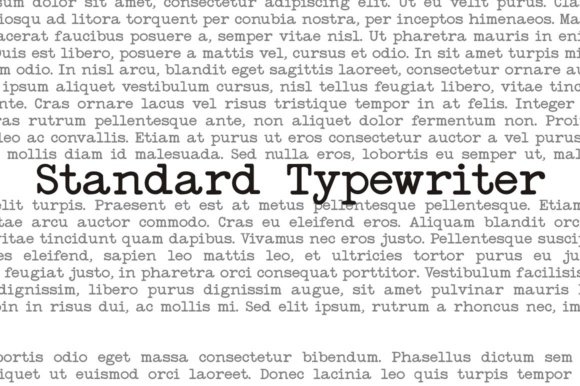
The Standard Typewriter Font embodies the classic, straightforward aesthetic of traditional typewriter text. Its clean, unembellished serif structure makes it an ideal choice for creating authentic vintage impressions that evoke the era of mechanical typing machines. Designed with simplicity in mind, this font is perfect for projects aiming to replicate the nostalgic charm of old documents, typewritten scripts, or archival materials. Its neutral appearance provides excellent readability, which makes it suitable for use in both digital and print contexts where a vintage, yet uncluttered, look is desired.
Beyond its visual appeal, the Standard Typewriter font serves as a versatile tool in design applications such as branding for vintage-inspired products, editorial layouts, or personal projects that seek a subtle, timeless typewriter effect. When used in creative storytelling, it can enhance the authenticity of a narrative or historical context. This font performs particularly well in situations where minimalistic typewriter aesthetics are needed to convey professionalism or a sense of nostalgia without overwhelming the content. Its straightforward design ensures it complements other design elements effortlessly, making it a staple in the realm of typewriter fonts.
2. Shine Typewriter Font
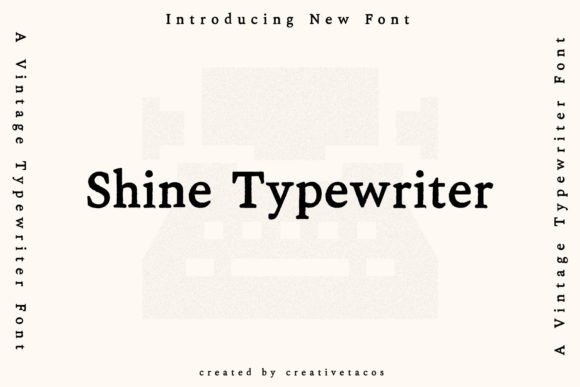
The Shine Typewriter Font stands out as a lively, eclectic take on traditional typewriter fonts, infused with a creative and handmade flair. Its quirky lettering style brings a retro or forensic vibe that can perfectly evoke a sense of character, edginess, or personalized authenticity. This font is especially effective when incorporated into designs that aim to evoke nostalgia, vintage detective stories, or old-school laboratory themes. Its distinctive, slightly imperfect strokes lend a tactile, handmade quality that adds depth and personality to any typographic landscape.
Ideal for diverse creative projects such as posters, album covers, or branding that needs a playful yet vintage touch, Shine Typewriter can dramatically elevate visual storytelling. It works well in contexts where a handcrafted, thematic font is critical—think zines, indie branding, or thematic websites that seek to captivate audiences with an artisanal feel. Due to its unique character, this font is also excellent for headlines or titles that require a bit of punch and personality, setting a memorable tone. Its bold, retro aesthetic allows it to stand out in a crowded design space while paying homage to the tactile charm of old typewriters.
3. Unexpected Typewriter Font
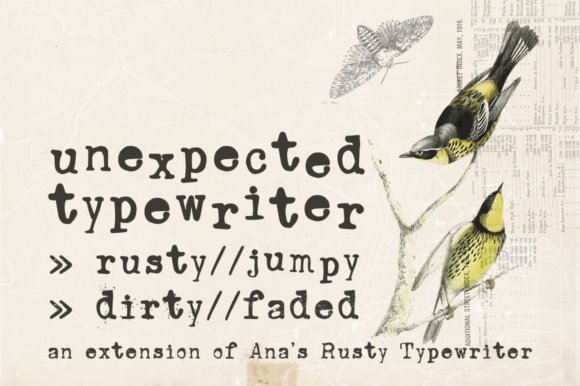
Unexpected Typewriter Font offers a distinctive twist on vintage typewriter styles, combining hand-drawn elements with the classic serif structure to create an imperfect, grungy aesthetic. Inspired by the authentic feel of old Underwood models, this font family includes multiple variations—such as Jumpy, Dirty, and Faded—that enable designers to craft layered, vintage-inspired compositions with a raw, distressed look. The inclusion of contextual alternates in the Jumpy version allows for natural variation within the text, making each usage feel more organic and less mechanical, enhancing its suitability for projects that celebrate imperfection and nostalgia.
This font is especially well-suited for creative projects where a touch of rugged authenticity is required. Use it in album artwork, gritty posters, or personal art projects that aim to portray a sense of historical authenticity or vintage rebellion. Its textured, distressed appearance can add depth to branding for vintage shops, retro-themed packaging, or editorial layouts where a worn, tactile typographic feel elevates the overall aesthetic. When used thoughtfully, Unexpected Typewriter can evoke stories of the past with an artistic twist, perfect for designers seeking to meld history with handcrafted charm in their typography.
4. Remington Weather Display Font
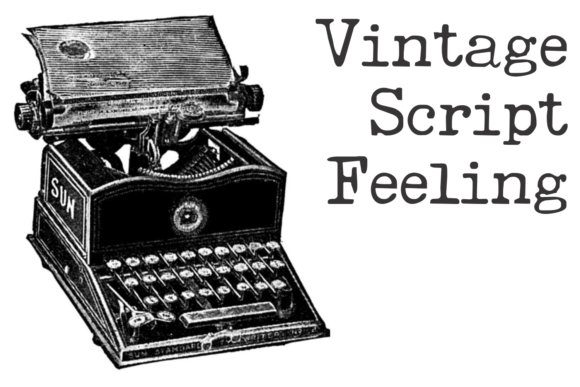
Remington Weather is a distinctive distressed typewriter font designed to emulate the imperfections found in vintage typewriting machines from bygone eras. Its intentionally worn and chaotic ink effects evoke a sense of history and raw authenticity, making it particularly suitable for projects seeking a rugged, nostalgic aesthetic. As a typewriter font, it captures the organic irregularities of old mechanical typing, including uneven ink trails and slanted letterforms, lending an edgy character that stands out in display settings.
This font is ideal for creating memorable titles, posters, and branding that call upon a vintage or industrial mood. Its gritty visual texture enhances designs demanding a sense of authenticity or handcrafted appeal—think vintage-themed advertisements, magazine headlines, or album covers. When aiming to evoke the tactile feel of aged typewritten documents, Remington Weather becomes a compelling choice, translating the historical charm of classic typewriter fonts into contemporary visual projects effectively.
5. Ab Typewriter Font
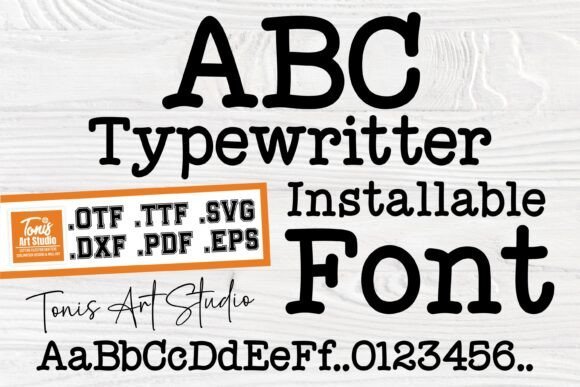
The Ab Typewriter font breathes new life into classic typewriter lettering, blending retro charm with modern versatility. This font set offers a comprehensive collection of SVG, DXF, TTF, and OTF formats, making it highly suitable for a range of digital and physical crafting projects—especially those involving Cricut, Silhouette, and other cutting machines. Its vintage aesthetic brings a touch of nostalgia to scrapbooking, card designs, and DIY crafts, transforming ordinary projects into personalized works that echo the era of typewritten manuscripts.
Beyond its aesthetic appeal, Ab Typewriter’s detailed files—vector images, high-resolution PNGs, and printable PDFs—make it easy to incorporate its timeless letterforms into diverse creative mediums. The font’s imperfect character, often featuring slight misalignments and varied ink densities, perfectly mimics the organic flaws of vintage typewriters. This authentic vintage look is perfect for craft enthusiasts, graphic designers, and branding professionals aiming to evoke the feel of a bygone era while adding a uniquely handcrafted touch to their projects.
6. Rattle Ink Serif Font
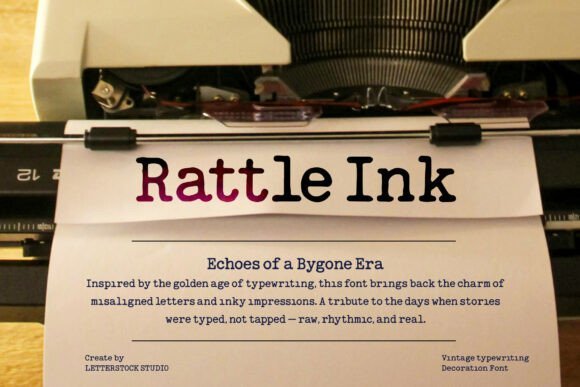
Rattle Ink is a beautifully imperfect serif font that draws inspiration from vintage typewriter fonts, capturing the essence of old-school printing through its organic, distressed appearance. Each letter is subtly marked with ink bleeds, misalignments, and slight irregularities, creating an authentic retro vibe that resonates with nostalgic design sensibilities. Its distressed yet legible form makes it an excellent choice for projects aimed at evoking vintage elegance, from book covers to branding logos, or retro-inspired posters.
As a typewriter font, Rattle Ink lends a nostalgic charm to editorial layouts, flyers, and social media graphics that seek to reflect an era when manual typesetting was the norm. Its imperfect details add warmth and personality to any design, making it especially powerful for branding that celebrates heritage, craftsmanship, or history. Whether used in editorial design or creative branding projects, Rattle Ink ensures your visuals communicate a timeless allure rooted in the rich tactile history of typewritten text.
7. Typewriter Font
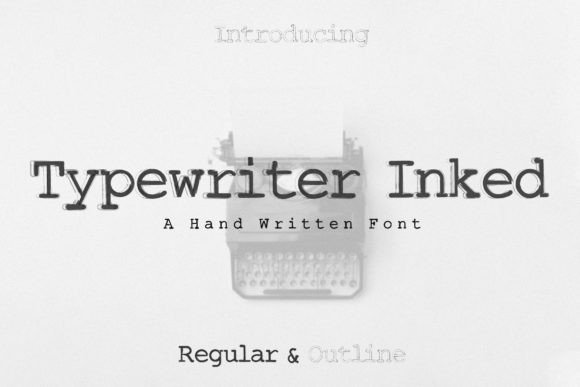
The Typewriter Font embodies a vintage charm infused with modern confidence, making it an excellent choice for projects seeking an authentic typewriter aesthetic. Its carefully crafted letterforms evoke the tactile and nostalgic qualities of classic typewriter keys, yet with a contemporary twist that communicates boldness and originality. This font’s unique personality lends itself well to branding materials that aim to evoke reliability, craftsmanship, or a retro vibe, such as packaging labels, impactful headlines, and creative web layouts.
Use the Typewriter Font to add a touch of timeless authenticity to your design projects. It excels in crafting memorable quotes, magazine headings, or invitations where a mid-20th-century feel is desired. Graphic designers and typographers can leverage its confident strokes to create striking logos and posters that stand out while maintaining a vintage flair. Its versatility extends to presentations and advertising campaigns that want to combine a sense of craftsmanship with contemporary creativity, making it an indispensable asset when aiming for an attention-grabbing yet nostalgic visual style.
8. Established Typewriter Font
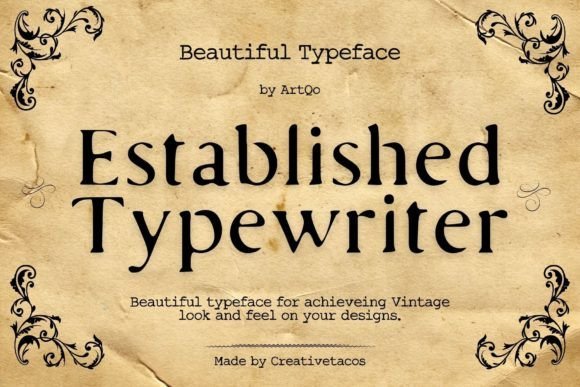
The Established Typewriter Font is a meticulously designed serif typeface that channels old-world authenticity with a refined vintage appeal. Inspired by classic typewriter aesthetics, this font captures the essence of traditional craftsmanship, making it ideal for projects where an air of credibility and nostalgic dignity is essential. Its timeless characters imbue book covers, vintage-themed invitations, and retro branding with a sense of history and elegance that elevates any design to a more distinguished level.
Designed to evoke a sense of historical authenticity, the Established Typewriter Font is perfect for literary projects, museum signage, or branding efforts that require a classic tone. When used in editorial layouts, it enhances readability while delivering a rich vintage character that draws viewers into a bygone era. Whether you’re working on a cover for a historical novel or creating a nostalgic marketing campaign, this font provides the ideal visual voice for telling stories rooted in tradition, offering a blend of charm and professionalism unique to typewriter-inspired serif fonts.
9. Smith-Premier Typewriter Family Font
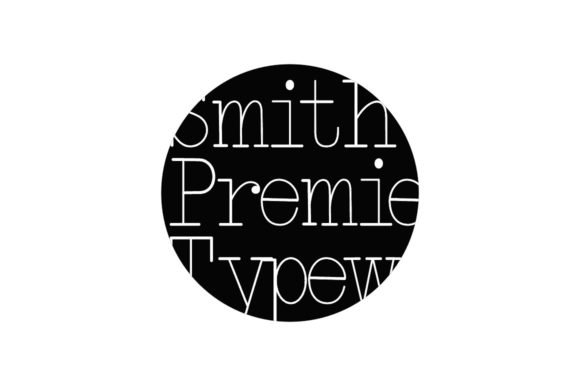
The Smith-Premier Typewriter Family Font represents a quintessential collection of typewriter-style serif fonts, comprising four distinct styles—regular, bold, outline, and shadow—that provide a versatile toolkit for vintage-inspired design. Each style offers a different visual dynamic, from the steady clarity of the regular style to the bold impact of its heavyweight counterpart, and further creative options through outline and shadow effects. This plurality of options allows designers to craft layered, nuanced compositions that echo traditional typewriter outputs while incorporating modern graphic design techniques.
This font family excels in projects where a cohesive vintage typewriter aesthetic is desired across multiple design elements. It’s particularly well-suited for editorial layouts, historical branding, or packaging that calls for a genuine typewriter feel with flexibility. The various styles enable striking headlines, detailed text overlays, or decorative accents, all while maintaining a unified classic feel. Its broad versatility makes it a reliable choice for designers aiming to capture the legacy of typewriter fonts with the sophistication and variety needed for contemporary creative projects.
10. Tippy Tappy Line Font
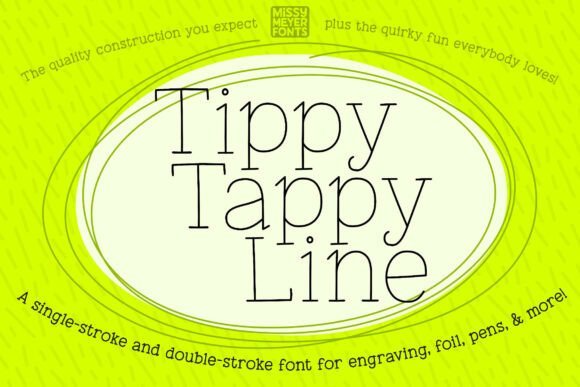
The Tippy Tappy Line font embodies the charm of vintage typewriter aesthetics combined with a playful, handcrafted touch. Its single-line outline design mimics the delicate stroke of a stylus or engraving tool, reminiscent of handwritten notes from classic typewriter machines. This distinctive style makes it particularly appealing for creative projects that aim to evoke nostalgia, from personalized greeting cards to jewelry engravings, or even decorative cutting boards. Its hand-crafted appeal ensures each stroke appears authentic, making it an ideal choice for projects where a bespoke, artisanal touch is essential.
Designed specifically for digital drawing and engraving processes, Tippy Tappy Line is compatible with a variety of stylus-based tools and cutting machines. Whether you work with foil quills, foil presses, laser engravers, or ink pens, this font offers both single-stroke and double-stroke variants, broadening its versatility across different platforms such as Cricut, Glowforge, and other crafting software. The inclusion of a full SVG character set allows for manual use or adaptation when software limitations prevent font typing. This makes it especially suitable for detailed drawn designs, personalized engravings, or nuanced score lines, as opposed to standard text composition for general print or digital documents.
11. Great Times Serif Font
Great Times is a delightful serif font that captures the nostalgic essence of classic typewriter fonts, infused with a cheerful, handwritten flair. Its quirky characters and whimsical, hand-drawn elements bring a sense of warmth and personality to any project. Perfect for branding, invitations, or creative headlines, this font radiates charm and friendliness, making it especially suited for projects that aim to connect with audiences through a personal vintage touch.
The font’s distinctly playful yet legible style makes it an excellent choice for both casual and semi-formal designs. When seeking to evoke the feel of vintage typewriter fonts in a contemporary context, Great Times provides a fresh, approachable aesthetic—ideal for social media graphics, scrapbook titles, or packaging labels where a hint of nostalgia and character is desired. Its hand-drawn, slightly imperfect lines add authenticity, making it stand out in digital design clutter for any creative project looking to blend classic typewriter elements with modern design sensibilities.
12. AMTW Serif Font
AMTW is a vintage-inspired serif font that draws inspiration from old American typewriters, encapsulating the rugged yet refined essence of early mechanical typing devices. Its distinctive style features slightly distressed edges and uneven ink impressions, replicating the authentic look of vintage typewriter output, making it a perfect choice for projects that aim to evoke a sense of history, nostalgia, or authenticity.
This font is available in three versions—Regular, Rough, and Rough Rough—each offering different levels of texture and distress. The Regular variant provides clean yet vintage-styled characters, ideal for formal or legible headings, while the Rough and Rough Rough versions introduce rougher edges and more weathered effects, suitable for posters, album covers, or branding that crave a worn, historical aesthetic. Whether for packaging that emphasizes craftsmanship or editorial layouts that call for a vintage touch, AMTW serves as a versatile typewriter font rooted in American design heritage, perfect for projects that honor the timeless appeal of vintage machinery and manual craftsmanship.
13. Mess in Keytic Serif Font
Mess in Keytic is a distinctive serif font that draws inspiration from the timeless aesthetic of typewriter letters. Its vintage charm is accentuated by the subtle irregularities and textured appearance reminiscent of classic typewriter output, making it an excellent choice for projects that aim to evoke nostalgia or a sense of authenticity. Whether used for body text or paragraph formatting, Mess in Keytic adds a layer of tactile richness that digital fonts often lack, giving your content a handcrafted feel.
Beyond simple text blocks, this font excels in large-format applications such as magazine covers, newspaper headlines, or vintage-themed posters. Its serif details provide enough structure to ensure readability while maintaining a casual, old-world charm. Designers working on retro branding, literary projects, or editorial layouts will find Mess in Keytic invaluable for creating an engaging visual narrative rooted in classic typewriter aesthetics and authentic typestyle heritage.
14. Typrighter Serif Font
Typrighter pushes the boundaries of typical typewriter fonts by incorporating highly detailed and customizable letterforms. Its unique feature lies in advanced contextual substitutions, which automatically generate up to seven variations of each letter within a word, ensuring that no two writings look identical. This dynamic variability captures the organic unpredictability of hand-typed words, making each project distinctly original and authentic. Perfect for branding, invitations, or artistic portfolios, Typrighter elevates the concept of typewriter fonts through its intricate design and innovative automation.
Designed for creators seeking a vintage yet modern twist, Typrighter’s customizable glyphs allow for unlimited creative expression while preserving the nostalgic essence of traditional typewriters. The font’s detailed letterforms and automatic stylistic variations lend themselves well to projects that require a natural, imperfect feel—such as album covers, literary magazines, or cover art—where an authentic, handcrafted vibe is paramount. Its ability to automatically generate variations guarantees a lively, vibrant text appearance that stands out on digital and print media alike.
15. Happy Ground Serif Font
Happy Ground embodies a charming interpretation of the classic typewriter style, crafted to evoke warmth and vintage authenticity. Its presentation—often showcased against rustic, textured backdrops like crinkled white fabric with dried floral accents—underscores its handmade, nostalgic character. This font’s gentle serif lines and slightly imperfect character shapes speak to a bygone era, making it ideal for projects aiming to communicate sincerity, handcrafted quality, or a rustic aesthetic.
Best suited for editorial spreads, wedding invitations, or branding for artisanal products, Happy Ground lends itself to settings that celebrate tradition and simplicity. Its vintage charm shines in contexts where a soft, approachable tone is desired, and it works beautifully when paired with natural textures and muted color palettes. Whether used in headlines to catch the eye or in paragraph form to tell a story, Happy Ground’s unique style injects a heartfelt, vintage vibe that resonates with audiences seeking authenticity and craftsmanship.
16. Rusted Typewriter Font
The Rusted Typewriter font embodies the rugged charm of vintage mechanical typing with a handcrafted, eroded aesthetic that adds character and authenticity to any design. Crafted meticulously with custom-made vector textures, this serif typewriter font simulates the wear and tear seen on old, rusted typewriter keys, making it an ideal choice for projects seeking a nostalgic, organic visual impact. Its distressed, vintage vibe works exceptionally well in branding aimed at retro-inspired products, historical themed posters, or artistic merchandise that benefits from an aged, authentic appearance.
Versatility is at the core of Rusted Typewriter’s appeal. It pairs seamlessly with both print and digital mediums, offering designers a tactile feel that enhances the perception of craftsmanship. Use it to evoke a bygone era in book covers, packaging designs, or vintage-inspired logos. Its handcrafted textures also allow for creative layering and blending techniques, giving your projects a rich tactile depth that captures the essence of typewriter fonts reimagined with a weathered, organic twist. This font is a distinctive addition for any designer aiming to marry nostalgia with a raw, artistic touch.
17. Grantype Font
Grantype stands out as a classic typewriter font that seamlessly bridges vintage charm with contemporary functionality. Its clean, authentic letterforms evoke the nostalgia of old-school mechanical typing, offering a timeless aesthetic that is both familiar and versatile. Ideal for a broad spectrum of projects, from editorial layouts and branding to retro-themed merchandise, Grantype brings a touch of historical elegance while maintaining a modern usability. Its well-balanced design ensures clarity and readability, whether used on book covers, posters, social media graphics, or stationery, making it a reliable choice for creatives seeking a subtle yet impactful vintage feel.
What makes Grantype particularly appealing in the realm of typewriter fonts is its comprehensive character set, including multilingual support, numerals, and punctuation. This adaptability allows it to be used on a global scale, fitting well with international branding campaigns or multicultural editorial work. The font’s authentic serif structure and nostalgic tone add a layer of sophistication and warmth, making it perfect for projects that aim to recall the craftsmanship of traditional typewriters while remaining fully integrated into modern design workflows. Whether you’re crafting a vintage-inspired logo or a classic newspaper layout, Grantype offers a robust, stylish foundation rooted in the timeless appeal of typewriter fonts.
18. Leorio Serif Display Font
Leorio is a minimalist serif display font that lends a clean, structured elegance to any creative project. While not a traditional typewriter font, its simple and precise serif details can complement retro-inspired designs—especially when paired with vintage typewriter aesthetics—adding a modern touch without sacrificing readability. Its neat and uncluttered letterforms make it an excellent choice for headlines, titles, and branding elements that seek a versatile yet refined visual identity. Leorio’s understated design ensures it works well across various digital and print applications, from minimalist posters to contemporary editorial layouts.
Though primarily a display font, Leorio’s flexibility allows it to be integrated into more thematic projects that require a slightly vintage or classic feel, perhaps in conjunction with actual typewriter fonts for a layered, textured design. Its geometric simplicity provides a perfect backdrop for incorporating textured effects or pairing with more distressed fonts to achieve an authentically retro look. Use Leorio to create contrast within your design palette, highlighting key information or adding visual balance to projects that aim to evoke the precise, understated craftsmanship of vintage typewriter fonts while maintaining a modern aesthetic.
19. Folclorica Typewriter Font
The Folclorica Typewriter font masterfully captures the nostalgic essence of vintage typewriter impressions, making it an ideal choice for designers seeking an authentic antique feel. Its distinctive erased and heavily inked appearance evokes the rough, imperfect charm of older mechanical typewriters, which can add a layer of textured authenticity to your projects. Whether you’re crafting book covers, packaging labels, or creating digital designs that demand a sense of history or craftsmanship, this font provides a compelling visual voice that resonates with vintage aesthetics.
Beyond its aesthetic appeal, Folclorica Typewriter’s rugged design lends itself well to creative uses such as vintage-style posters, editorial layouts, or branding that aims to evoke a sense of craftsmanship and nostalgia. Its unique inked textures make it especially well-suited for overlaying on distressed backgrounds or for use in projects that aim to recreate the manual, tactile nature of traditional typewriters. Incorporating this typewriter font into your toolkit can elevate your designs with an air of authenticity rooted in historic print practices.
20. Neo Bulletin Family Serif Font
The Neo Bulletin Family presents a versatile collection of typewriter-inspired fonts, offering twelve distinct variations to suit a broad spectrum of design needs. Embracing the classic yet adaptable aesthetic of old-fashioned typewriting, this typewriter font family excels in delivering a nostalgic, vintage tone that can lend depth and character to editorial layouts, invitations, and branding projects. Its balanced letterforms capture the essence of mechanical typing while maintaining clarity and visual appeal across various sizes and media.
Designed with both historical fidelity and modern versatility in mind, Neo Bulletin’s diverse family ensures designers can find the perfect variant—ranging from more distressed, weathered styles to cleaner renditions—great for recreating the vintage typewriter look with authenticity. This makes it an excellent choice for storytelling in print or digital media, where the subtle imperfections and variation in each glyph evoke the tactile charm of typewriters from a bygone era. Using this font family allows creative professionals to infuse their work with a sense of timeless craftsmanship and vintage authenticity.
21. Underwood Typewriter Font
The Underwood Typewriter font celebrates one of the most iconic names in the history of mechanical writing devices, offering a distinctive serif typewriter font design that authentically reproduces the look and feel of vintage Underwood machines. Its textured, slightly worn appearance lends a sense of historic authenticity, making it an excellent choice for projects that aim to evoke the tactile, manual effort associated with early 20th-century typewriters. Whether used in branding, packaging, or editorial design, this font conveys a strong vintage narrative with a refined serif structure that ties the aesthetic to the past.
Perfect for projects that require a nostalgic touch—such as retro-themed promotional materials, film titles, or literary publications—the Underwood Typewriter font bridges the gap between historical craftsmanship and modern storytelling. Its detailed, deliberate letterforms can deepen the emotional resonance of your visuals, especially when combined with distressed backgrounds or overlay effects that highlight its textured appearance. For authenticity-driven design, this font stands out as a compelling tribute to the era of manual typewriting mastery.
22. Olivetti Typewriter Font
The Olivetti Typewriter font epitomizes the timeless charm of vintage typewriter aesthetics, making it an ideal choice for designers aiming to evoke nostalgia and authenticity. Its design closely mirrors the mechanical imperfections and character of classic typewriters, with slightly uneven letter impressions that add a genuine tactile feel. As a highly readable serif font, Olivetti enhances textual clarity while delivering a distinctive vintage vibe that stands out in editorial layouts, branding projects, or packaging that seek an adjective of classic sophistication.
Given its roots in old-school communication devices, this typewriter font excels in projects where a sense of history, tradition, or craftsmanship is desired. It works particularly well in creating vintage-themed posters, book covers, or article headlines, where the essence of typewritten text enriches the visual narrative. Incorporating Olivetti allows designers to subtly blend modern sophistication with a nostalgic nod to antiquated office machinery, making it a versatile tool for any design seeking an authentic typewriter-inspired aesthetic.
23. Rustic Endstory Font
Rustic Endstory is a thoughtfully crafted vintage-style serif typewriter font that immerses viewers in the charm of bygone eras. Its weathered textures, distressed lettering, and classic structural form evoke the tactile sensation of aged manuscripts and traditional correspondence. This font’s imperfect, organic lines contribute to an authentic vintage atmosphere, making it perfect for projects that require an added layer of character and history. From historical documents to themed event invitations, Rustic Endstory elevates your designs with its nostalgic appeal, reminiscent of handwritten notes and analog print media.
Utilizing Rustic Endstory in your creative projects can effectively transport audiences through time, creating an immersive experience with every word. Its suitability extends beyond mere aesthetics, fitting well in branding for vintage shops, artisanal products, or literary projects that seek to evoke warmth and familiarity. Whether used in packaging labels, book covers, or promotional materials, this typewriter serif font offers a compelling bridge between modern design and the enduring charm of handwritten or typewritten text, making it a valuable asset in your typographic toolkit.
24. Wolfsmith Serif Font
Wolfsmith is a distinguished vintage serif font rooted in the classic typewriter style, offering a refined yet nostalgic aesthetic that lends an air of authenticity to a wide array of design projects. Its bold structural lines and timeless character make it especially suitable for creating logos, editorial layouts, magazine covers, and branding elements that want to evoke a sense of tradition and craftsmanship. The font’s vintage appeal is complemented by its versatility, allowing it to adapt seamlessly to wedding designs, stationery, promotional materials, or art quotes, all while maintaining a sense of elegant durability stemming from its typewriter origins.
For designers exploring the realm of typewriter fonts—particularly those aiming to blend a historic feel with modern sensibilities—Wolfsmith presents an excellent solution. Its cohesive serif structure enhances readability, yet its vintage nuances add personality and depth. Whether used as a headline font on a book cover, a motif in home decor branding, or a distinctive feature in creative advertising, Wolfsmith’s classic look can add that touch of authenticity and timelessness that resonates with audiences seeking a handcrafted or heritage-driven aesthetic.
25. Autors Story Serif Font
Autors Story seamlessly fuses traditional serif design with the nostalgic charm of typewriter aesthetics, resulting in a distinctive typewriter font that exudes timeless appeal. Its balanced serif accents combined with a hint of vintage roughness cultivate a sense of authenticity and craftsmanship. This font’s unique character makes it excellent for projects seeking a blend of classic elegance and retro flair, such as vintage-inspired editorial layouts, book covers, or branding that aims to evoke a sense of history and reliability.
Designed with versatility in mind, Autors Story is particularly effective for creating headlines, subtitles, or highlighted text that requires a touch of old-world class. Its distinctive serif details complement the slightly worn, handcrafted look typical of traditional typewriter fonts, making it a suitable choice for retro campaigns or packaging that aims to invoke nostalgia. When paired with textured backgrounds or aged paper, Autors Story can transform modern designs into compelling visual narratives rooted in history, adding an authentic touch to vintage or heritage-themed branding and editorial projects.
26. LL Pearl White Serif Font
LL Pearl White offers a dynamic spin on traditional serif fonts with an unconventional grunge-inspired aesthetic that brings a rebellious edge to any design. Its lively, distressed details and playful imperfections mimic the wear and tear of vintage typewriter prints, making it ideal for projects that want to lean into a raw, edgy, or alternative vibe. This typewriter-inspired font stands out as a versatile choice for street art-inspired posters, album covers, or urban-themed editorial layouts where a sense of gritty authenticity is paramount.
Perfect for creators seeking to evoke a rebellious vintage attitude, LL Pearl White can be combined with bold imagery or layered textures to intensify its grunge effect. Its energetic style lends itself well to uses beyond traditional branding—think experimental book covers, zine layouts, or promotional materials that thrive on disruption and personality. When wielded thoughtfully, LL Pearl White injects a playful yet rugged character into contemporary design, ensuring your project captures attention with its distinctive personality rooted in the typewriter font tradition.
27. Typewriter Serif Font
The Typewriter font is a quintessential monospaced typeface inspired by the mechanical typewriters of the past century, capturing the essence of vintage documentation with remarkable authenticity. Its design features thick, uneven strokes and rounded serifs that accurately mimic the imperfect beauty of manual typewriting, complete with authentic misalignments and subtle irregularities. This inherent ruggedness and realism make the font an outstanding choice for projects that demand a nostalgic, handcrafted feel—be they historical fiction covers, vintage correspondence mockups, or rustic branding initiatives.
Beyond its historical charm, the Typewriter font excels in storytelling contexts, where it can effectively evoke heritage, trustworthiness, and a tactile sense of tradition. Its textured appearance lends an air of warmth and personality to editorial layouts, packaging, and branding, making it suitable for vintage-themed posters, personalized stationery, or creative branding concepts that benefit from an ‘old-world’ appeal. Incorporating this font not only highlights a connection to the past but also brings a tangible authenticity to contemporary design projects, turning ordinary text into a compelling, nostalgic experience that resonates deeply with audiences seeking genuine, handcrafted aesthetics.
28. Enigma Typewriter Sans Font
Enigma Typewriter Sans is a masterful representation of the classic typewriter font aesthetic, reimagined through a modern, sans-serif lens. Created by DesignSomething, this typewriter font draws inspiration from the historical German Enigma machine, infusing a subtle sci-fi undertone alongside its vintage roots. Its clean yet slightly distressed letterforms make it a versatile choice for projects aiming to evoke authenticity, whether for recreating vintage documents, flyers, or branding materials that demand a slightly industrial or nostalgic feel. In the realm of typewriter fonts, Enigma Typewriter Sans stands out for its balance between clarity and character, offering a contemporary twist to the traditional typewriter look.
Ideal for editorial layouts, packaging, and digital art where a nod to the past becomes a design feature, Enigma Typewriter Sans provides an approachable, easy-to-read style that complements both minimalist and richly textured compositions. Its design versatility makes it suitable for creative uses like editorial headlines, movie posters, or branding for niche markets like vintage bookstores or tech-inspired startups. As a go-to typewriter font with a sleek sans-serif structure, it successfully bridges history with modernity, providing a distinctive voice in any typographic toolkit.
29. Rusted Soul Font
Rusted Soul introduces a bold, distressed typewriter-inspired font that captures the gritty essence of aged metal and timeworn signage. With its rough textures, imperfect edges, and broken ink details, this font evokes a sense of history and ruggedness, making it an excellent choice for projects that aim to communicate strength, authenticity, and a vintage industrial vibe. As a typewriter font with a weathered character, Rusted Soul is particularly effective in grunge branding, vintage posters, and apparel designs that require a tactile, raw aesthetic. Each letter’s distressed detail lends an inherently handcrafted feel, perfect for projects striving for an organic, rebellious, or nostalgic tone.
Beyond its visual impact, Rusted Soul is highly versatile for digital and print mediums, especially where a compelling sense of decay and resilience must be communicated. Use it to craft impactful headlines, album covers, or product labels that harness a sense of history and grit. Its bold presence pairs well with textured backgrounds or grunge-themed compositions, reinforcing the concept of imperfection—making it a vital addition for designers seeking to evoke the timeless allure of vintage typewriters intertwined with industrial decay in their storytelling.
30. Baltimore Typewriter Pack Serif Font
The Baltimore Typewriter Pack is a comprehensive collection of vintage-inspired serif fonts that skillfully capture the nostalgic charm of traditional typewritten text. Designed to lend authenticity and timeless elegance to any project, this font pack reflects the characteristic imperfections and mechanical nuances of old-school typewriters. With its carefully crafted characters, Baltimore Typewriter Pack is perfectly suited for creating retro-themed posters, invitations, book covers, or branding materials that require a classic and enduring aesthetic. Its authentic typewriter feel lends a sense of warmth and history, making it ideal for both creative and commercial applications where a touch of vintage authenticity is desired.
Utilizing the Baltimore Typewriter Pack in your design work unlocks a nostalgic atmosphere that seamlessly blends the past with the present. It works exceptionally well for projects that aim to evoke stories, memories, or a vintage vibe—think artisanal product packaging, vintage-inspired editorial layouts, or personalized stationery. Because the pack offers a variety of weights and styles within its collection, it provides excellent flexibility for typographic hierarchy and visual storytelling. When combined with modern design sensibilities, Baltimore Typewriter Pack becomes a powerful tool to craft compositions that feel both timeless and deeply human, embodying the enduring appeal of typewriter fonts in contemporary design landscapes.
31. The Old Typewriter Font
The Old Typewriter font embodies the nostalgic charm and authentic character of vintage typewriters, making it an ideal choice for those seeking a genuine typewriter font that captures the essence of a bygone era. With its expertly crafted design, this font offers a warm, handwritten touch that adds personality and intimacy to any project. Its slightly imperfect, humanized strokes mimic the letter imprints of mechanical typewriters, making it perfect for projects that aim to evoke a sense of history, craftsmanship, or vintage authenticity.
From magazine headlines and social media graphics to wedding invitations and greeting cards, The Old Typewriter is versatile enough to enhance both print and digital media. Its clear legibility ensures it works well as both a compelling title font and body text, especially where a personal, handcrafted aesthetic is desired. Whether for branding projects that lean into retro themes or editorial layouts that crave a tactile, nostalgic feel, this font offers a compelling way to elevate visual storytelling with a touch of timeless character.
32. Typedeer Mono Font
Typedeer Mono is a distinctive typewriter-inspired slab serif font that channels the rugged, nostalgic imprint of rubber stamps. Designed to emulate the uneven edges and ink saturation variations characteristic of traditional stamping, this typewriter font embodies an imperfect, distressed aesthetic that adds authenticity and personality to any design. Its bold, geometric strokes lend a vintage appeal, making it an excellent choice for projects that aim to induce a sense of craftsmanship, imperfection, or retro flair.
Ideal for creating eye-catching headlines, branding materials, or packaging that call for a textured, tactile feel, Typedeer Mono is also effective in poster design, vintage-inspired branding, or even sensory-rich social media graphics. The font’s rugged charm lends itself well to themes of authenticity, nostalgia, or artisanal craftsmanship, making it a versatile tool for designers wishing to evoke the tactile, imperfect beauty of old-fashioned typewriter text combined with a modern graphic sensibility.
33. Notenic – Typewriter Typeface Font
Notenic fuses classic serif principles with the vintage aesthetic of a traditional typewriter, resulting in a font that exudes timeless elegance paired with nostalgic appeal. Its meticulously crafted letterforms evoke the clean yet slightly textured impression of old typewritten text, making it well-suited for projects that seek to blend sophistication with a retro vibe. By integrating the appeal of serif fonts with the warm, human feel of typewriter typography, Notenic offers a unique visual experience that resonates with modern audiences while nodding to vintage design roots.
This typewriter-inspired serif font is ideal for editorial work, branding projects with a vintage or classic theme, or any design where a refined but nostalgic atmosphere is desired. Whether used in book covers, invitation designs, or documentation that benefits from a touch of historical charm, Notenic elevates traditional serif aesthetics while infusing them with a rich, tactile personality synonymous with the timeless appeal of typewriter fonts.
34. Inabitavek Typewriter Font
The Inabitavek Typewriter font captures the nostalgic charm of vintage typewriters with an authentic, deliberately worn aesthetic. Its design mimics the irregular ink distribution and subtle erasures characteristic of older machine-produced text, making it an ideal choice for projects aiming to evoke a sense of history, craftsmanship, or vintage authenticity. This typewriter font’s imperfect, textured appearance enhances the aesthetic appeal of packaging, branding, or editorial layouts that seek to channel a bygone era.
Furthermore, Inabitavek Typewriter offers versatility in creative applications, from book covers and posters to digital art. Its erasure-like effects can be used to craft distressed, weathered looks or to emphasize a handcrafted feel in modern designs. As a typewriter font rooted in classic print styles, it lends a distinct personality to headlines, invitations, and textual accents, especially when aiming to reinforce themes of vintage technology, storytelling authenticity, or retro-futurism.
35. Olivetti Typewriter Family Font
The Olivetti Typewriter Family presents a historically inspired set of typewriter fonts that embody elegance and precision. Consisting of five distinct weights—regular, wide, bold, shadow, and underscore—this family allows nuanced typographic expression while maintaining a cohesive vintage aesthetic. Designed to emulate the feel of classic Olivetti typewriters, this font family is particularly effective for projects that prioritize readability combined with an authentic retro vibe.
From nostalgic branding and editorial layouts to vintage-inspired signage, the Olivetti Typewriter Family offers a comprehensive toolkit for designers seeking to evoke the tactile experience of using an early 20th-century machine. The varying weights enable contrast and emphasis in headlines or body text, while its distinctive letterforms bring a refined sense of craftsmanship to digital compositions. When used thoughtfully in branding, packaging, or literary projects, this typewriter font family adds a touch of timeless sophistication rooted in the legacy of classic typography and typewriter technology.
36. Graintype Serif Font
Graintype seamlessly marries the traditional elements of serif design with the nostalgic allure of a typewriter-inspired aesthetic. Its character set combines the structured elegance of classic serif fonts with subtle imperfections that imitate the mechanical nuances of vintage typewriters. This hybrid approach results in a font that feels both refined and characterful, making it especially suitable for projects that want to evoke a sense of history while maintaining visual sophistication.
Ideal for creating a retro, vintage, or artisanal vibe, Graintype lends itself well to editorial layouts, book typography, or branding that seeks to capture the essence of traditional craftsmanship. Its unique textured appearance adds an element of authenticity and warmth, transforming ordinary text into a statement piece. Overall, Graintype’s blend of serif structure and typewriter-inspired imperfections offers designers a versatile tool to craft memorable, timeless designs with a nostalgic touch, enriching any project with vintage character and depth.
37. Rowan Cursive Serif Font
Designed to evoke the nostalgic charm of vintage typewriters, Rowan Cursive is an elegant serif font that seamlessly combines classic sophistication with a fluid, handwritten quality. Its refined italic flow and timeless character are achieved through graceful curves, subtle contrast, and soft transitions, resulting in a typeface that feels both personal and polished. This font’s unique “slanted” elegance merges tradition and modernity, making it ideal for projects that require a warm, human touch—such as artisanal branding, editorial storytelling, or luxurious packaging. It captures the organic, imperfect rhythm characteristic of vintage typewriter output, but with a nuanced cursive twist that adds to its expressive appeal.
Perfect for long-form textual elements like book chapters, quotes, or storytelling captions, Rowan Cursive stands out with its rounded terminals and gentle lean, reminiscent of handwritten notes transcribed onto vintage machines. Its extended Latin character set supports multilingual projects, enhancing its versatility for international branding and publications. When paired thoughtfully with upright serif or slab serif fonts, Rowan Cursive adds complex layers to typographic hierarchies, enriching designs that aim for an authentic, personal atmosphere. Whether you’re creating a cozy cafe menu, a premium fashion campaign, or wedding invitations with a touch of poetic elegance, this font delivers a distinctive, approachable attitude that feels handcrafted yet refined.
38. The City Serif Font
The City is a unique, minimal serif font inspired by the raw, authentic feel of typewriter lettering. Its hand-crafted, handwritten aesthetic makes it an excellent choice for designers looking to add a personal, human element to a wide range of creative projects. The font’s clean and straightforward structure lends itself well to editorial layouts, branding for boutique businesses, or packaging designs that aim for a vintage yet modern vibe. The deliberate imperfections and irregularities in its strokes evoke the tactile sense of typing on an old machine, making it especially suitable for projects seeking an authentic, nostalgic appeal.
As a versatile typewriter-inspired font, The City can easily stand out in a crowded visual landscape, whether used for headlines, subheadings, or captions. Its handcrafted aura pairs well with rustic, vintage, or even contemporary minimal designs, providing a subtle contrast that draws attention without overpowering the overall composition. Given its handwritten serif characteristics, it’s an excellent choice for creative branding, invitations, or editorial pieces where personality and storytelling are key. Incorporate The City into your typographic toolkit to lend your projects an unmistakable, approachable, and memorable voice through a font that evokes the charm of classic typewriter lettering reimagined for modern aesthetics.
39. France Serif Font
France is a vintage-inspired serif font that draws strong influence from the classic typewriter alphabet, capturing its nostalgic essence with subtle imperfections and a slightly distressed aesthetic. Its vintage look and feel make it a compelling option for projects that aim to evoke a sense of history, craftsmanship, or timeless elegance. Perfect for branding, packaging, or editorial layouts, France lends a distinctive character rooted in the authenticity of traditional typewriter impressions, yet maintains a refined presence that enhances any creative narrative.
This typewriter font is particularly effective when used for designs where a touch of nostalgia or vintage sophistication is desired. Its textured stroke contributes to a weathered, worn-in appearance, ideal for vintage product labels, historic-themed campaigns, or artistic projects aiming for an old-world charm. France’s strong personality complements projects that require a straightforward yet evocative typographic voice—think of artisanal food packaging, retro-style posters, or magazine covers that nod to the bygone era of handwritten correspondence and typewriter storytelling. With its vintage aesthetic and robust character, France instantly evokes sentimentality while offering a versatile foundation for visual storytelling rooted in the classic typewriter font universe.
40. Silk Remington Font
Silk Remington is an authentic-looking typewriter font crafted by the Jadugar Design Studio in New Zealand, capturing the nostalgic essence of vintage typewriting technology. Its design meticulously mimics the imperfections and unique character of traditional typewriter lettering, making it an ideal choice for projects aiming to evoke a sense of history, authenticity, or timeless craftsmanship. Whether used for adding a vintage touch to book covers, posters, or packaging, Silk Remington offers a realistic texture that brings the charm of old-fashioned machinery into modern design contexts.
As a versatile typewriter font, Silk Remington is particularly well-suited for creating a retro or historic mood in digital or print materials. Its detailed letterforms lend themselves to re-creating the feel of newspapers, memos, or handwritten notes from bygone eras. It serves as an excellent choice for branding vintage-inspired products, editorial layouts emphasizing nostalgia, or even personal projects where a handcrafted, authentic appearance is paramount.
41. Erased Typewriter 2 Font
Erased Typewriter 2 stands out among typewriter fonts with its distressed, deliberately sloppy ink effects that emulate the wear and tear of aging print technology. Its deliberately imperfect textures create a sense of history and impermanence, making it particularly effective for projects that aim to evoke authenticity, grit, or a rebellious vintage aesthetic. This font’s rough edges and uneven ink application lend themselves perfectly to branding for artisanal products, indie zines, or packaging for food and beverages that want to appear handcrafted or nostalgic.
Ideal for creative branding, Erased Typewriter 2 lends itself well to storytelling and visual narratives that celebrate imperfection and character. It can add a playful yet raw vibe to logos, social media graphics, or packaging designs like candy wrappers or food labels, where a slightly distressed, approachable look is desirable. Its versatile and bold personality makes it an excellent choice for designers seeking to craft memorable, vintage-inspired visuals with a modern twist.
42. Bohemian Typewriter Font
Bohemian Typewriter is a beautifully crafted handwritten typewriter font that exudes romance and artistic flair, merging the vintage charm of classic typewriting with the softness of a handwritten style. Its organic, slightly imperfect letterforms bring a personal and intimate touch, positioning it as an ideal font for projects seeking both nostalgia and elegance. Whether used as a headline or body text, Bohemian Typewriter offers clarity and grace, making it highly adaptable for a variety of creative applications.
This font shines in designs meant to evoke emotion and personality—think wedding invitations, greeting cards, or magazine headlines that need to combine a vintage aesthetic with modern sophistication. Its legibility ensures versatility across different mediums, while its romantic tone makes it perfect for branding projects that aim to connect emotionally with audiences. For those seeking a typewriter-inspired font that conveys authenticity with a delicate, artistic touch, Bohemian Typewriter is an exceptional choice.
43. Frontype Font
Frontype is a captivating serif font that artfully blends the timeless charm of traditional serif typefaces with the nostalgic appeal of a classic typewriter. Its design features subtle, vintage-inspired details that evoke a sense of history and craftsmanship, making it an ideal choice for projects seeking a retro yet refined look. When integrated into editorial layouts, branding, or packaging, Frontype lends an authentic touch that resonates with audiences fond of vintage aesthetics and the tactile feel of old typewriter text.
With its distinctive appearance, Frontype allows designers to evoke a sense of nostalgia while maintaining readability and elegance. It performs beautifully in headings, captions, and promotional materials aiming to impart a classic, artisanal personality. As a versatile typewriter font, it also works well for invitations, labels, and display headlines where a touch of vintage sophistication can elevate the overall design impact.
44. Intellecta Typewriter Font
Intellecta Typewriter is a refined serif font crafted specifically to emulate the traditional charm of vintage typewriters. Its letterforms are carefully designed to balance authenticity with clarity, making it a natural fit for projects that seek to evoke nostalgia, historical authenticity, or a handcrafted feel. As a font rooted deeply in the style of classic typewriter text, it is especially well-suited for literary projects, memoirs, or editorial work that benefits from the personality and texture of typewriter fonts.
This font shines when used in settings where a personal, warm tone is desired, such as book covers, personalized stationery, or creative branding campaigns. Its subtle serif details add a layer of sophistication that complements both minimalist and more ornate design compositions, ensuring the vintage essence remains prominent without sacrificing readability. Perfect for adding an authentic ‘inside-the-press’ feel to your typography palette.
45. Old Typewriter Font
Old Typewriter is a distinctive display font that authentically captures the vintage essence of early mechanical typewriters. Designed with a slightly worn, manual aesthetic, this font underscores the tactile nature of traditional typing machines, offering a nostalgic vibe that can make any digital design appear more tactile and handcrafted. Its rugged, distressed look makes it particularly compelling for projects that aim to evoke historical depth, authenticity, or a strong retro character.
Ideal for headings, posters, book covers, and other high-impact visual components, Old Typewriter injects a sense of character and individuality into your compositions. Its raw, vintage appeal is a powerful asset for brands or creative pieces aiming to stand out with a tactile, old-world feel. Whether used for themes related to history, storytelling, or vintage technology, this font can dramatically enhance the visual storytelling of your design, offering that unmistakable vibe of authentic typewriter typography.
46. Corona 3 Typewriter Font
The Corona 3 Typewriter font draws inspiration from the classic American typewriters of the mid-20th century, making it an exceptional choice for those seeking a vintage aesthetic rooted in authenticity. Its textured, slightly uneven characters emulate the imperfect impressions of mechanical typewriters, which lends a nostalgic and handcrafted feel to your designs. When paired with authentic serif fonts, this typewriter font enhances projects that require a touch of timeless charm, such as vintage branding, retro packaging, or historical-themed content.
Designed with meticulous attention to detail, Corona 3 offers excellent legibility even in longer texts, but it truly shines when used in headlines, invitations, or editorial layouts that aim to evoke a sense of legacy and craftsmanship. Its warm, nostalgic vibe also makes it perfect for personal projects like scrapbooking or custom stationery, where an authentic typewriting effect creates a personal, tactile connection with the audience. By integrating this font, designers can craft visuals that pay homage to bygone eras while maintaining contemporary relevance.
47. Rip Typewriter Font
The Rip Typewriter font offers a distinctive take on the traditional typewriter aesthetic, characterized by its deliberately eroded, ink-smeared appearance. This unique design captures the essence of vintage typewriters that have seen many pages, with ink smudges and irregular impressions adding an element of grit and authenticity. Such a textured style makes Rip Typewriter ideal for creative projects seeking to evoke a sense of aged craftsmanship or a raw, artistic vibe that stands out in posters, album covers, or experimental editorial layouts.
Its imperfect, distressed look lends itself especially well to modern reinterpretations of classic themes, blending nostalgia with a touch of rebellious flair. Use Rip Typewriter to create invitations that bear an authentic, vintage feel or to add visual interest to branding elements aiming to communicate authenticity, ruggedness, or creative authenticity. In digital design, this font pairs well with minimalist layouts, offering a striking contrast that emphasizes imperfection as an art form, perfect for projects where a distinctly handcrafted, vintage typewriter effect is desired.
Choosing the right Typewriter Fonts can significantly enhance the visual impact of your projects, adding a nostalgic yet modern touch. With this curated list of 47 high-quality options in 2026, you’ll find the ideal typewriter-inspired typeface to make your designs stand out and evoke a sense of timeless authenticity.